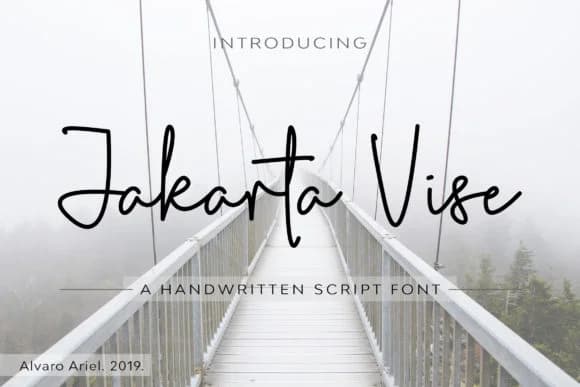
Picture yourself designing a wedding invitation suite, and you'll immediately see why Jakarta Vise Font by Cherryline Master has such a strong presence. This script brings together simplicity and refinement in a way that doesn't demand attention but makes every word it touches feel carefully considered and intentional. The letterforms flow with natural rhythm, creating visual warmth that reads as genuinely personal without losing legibility across different sizes or printing conditions. It's one of those scripts that works equally well at a glance and on close inspection.
Jakarta Vise excels on boutique greeting card sets, custom calligraphy place cards for weddings and events, and hand-lettered packaging for artisan storefronts. It's equally suited to high-end product labels for niche skincare lines or specialty goods, where understated elegance matters more than visual noise. You'll notice the script holds its character at both large display sizes and smaller body text applications, which gives real flexibility when you're designing across different formats. The multiple weights included let you build visual hierarchy and shift emphasis without hunting for companion fonts.
Jakarta Vise Font is a script font that shines as a display or heading face. Pair it with a clean sans-serif or serif font for body text β the contrast creates a clear hierarchy while the two styles stay balanced and easy to read.